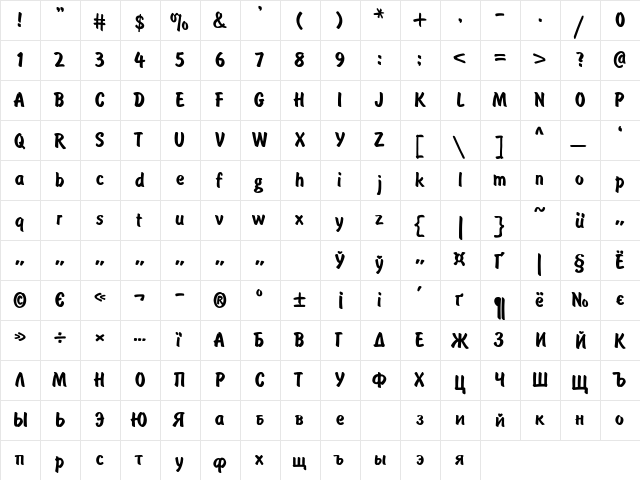
UkrainianBrushType Bold
Design Context for UkrainianBrushType Typeface
UkrainianBrushType flows with the natural rhythm of handwritten lettering, making it ideal for designs that call for warmth and personal expression. The heavy weight commands attention and anchors typographic hierarchies.
Font Pairing: Combine UkrainianBrushType with a simple geometric sans for maximum contrast — the tension between flowing curves and clean structure is a classic typographic pairing.
Pro Tip: Use UkrainianBrushType for short runs of text — names, titles, or taglines. Extended body copy in script faces tires the eye quickly.